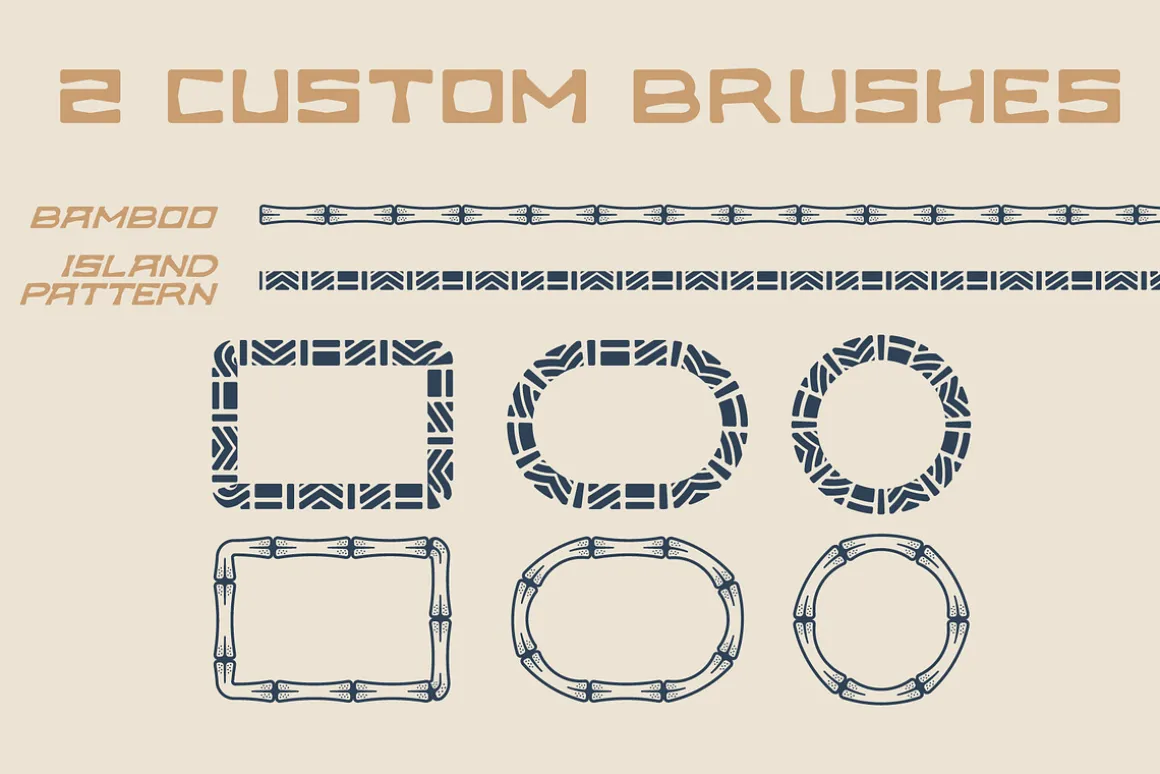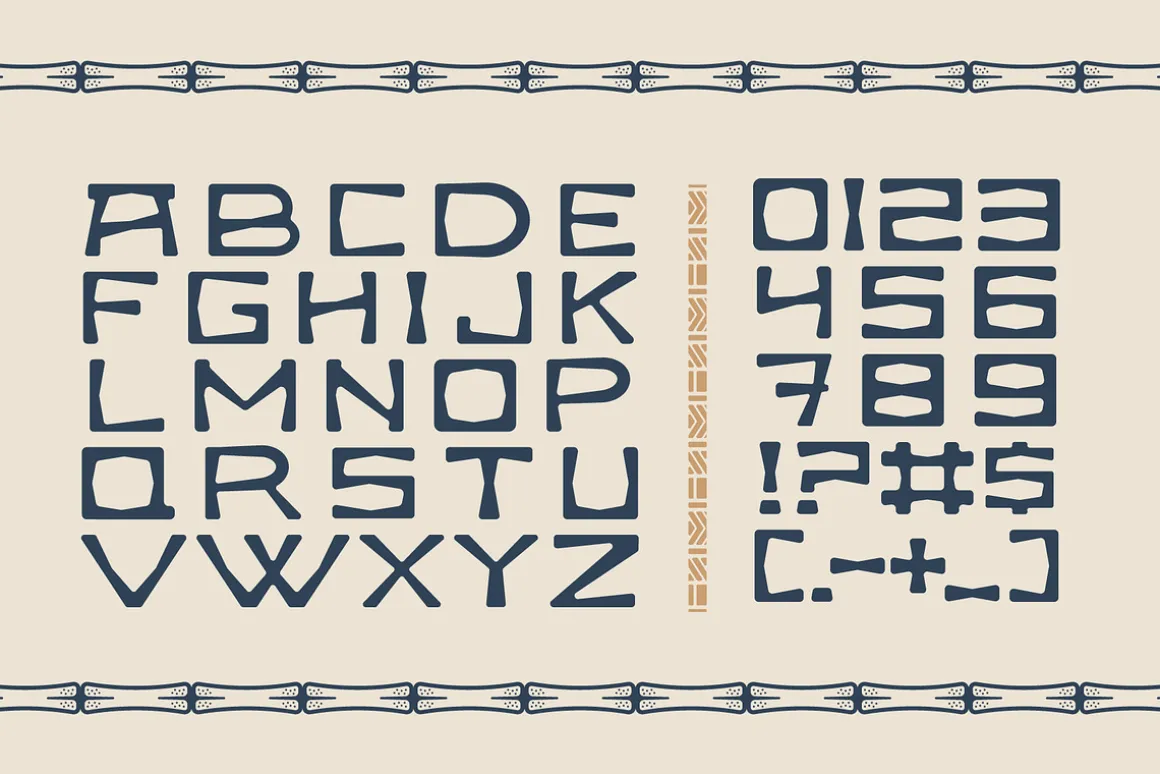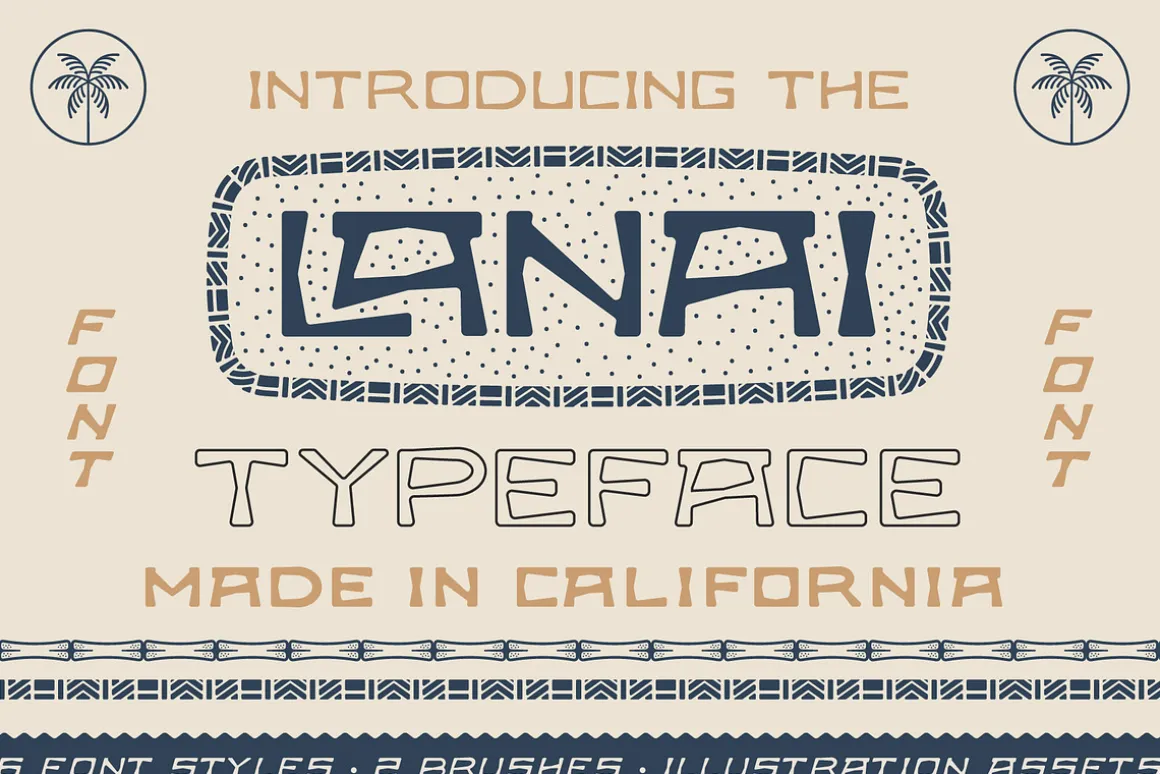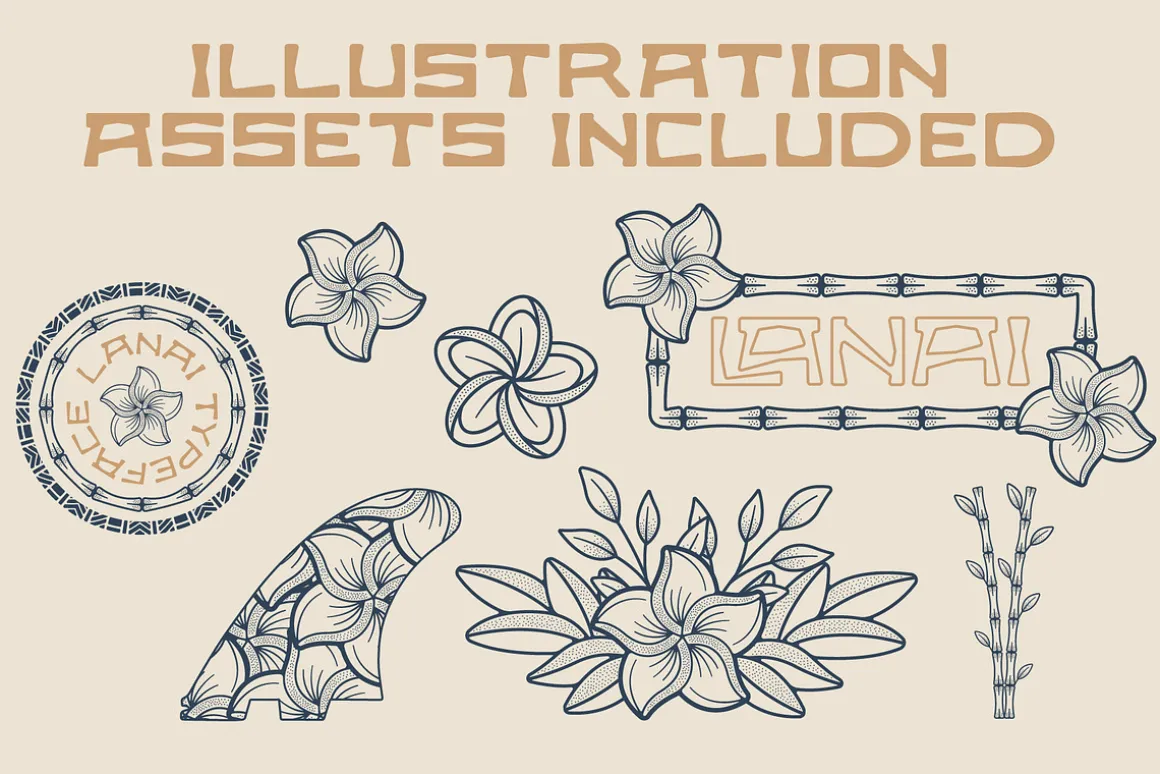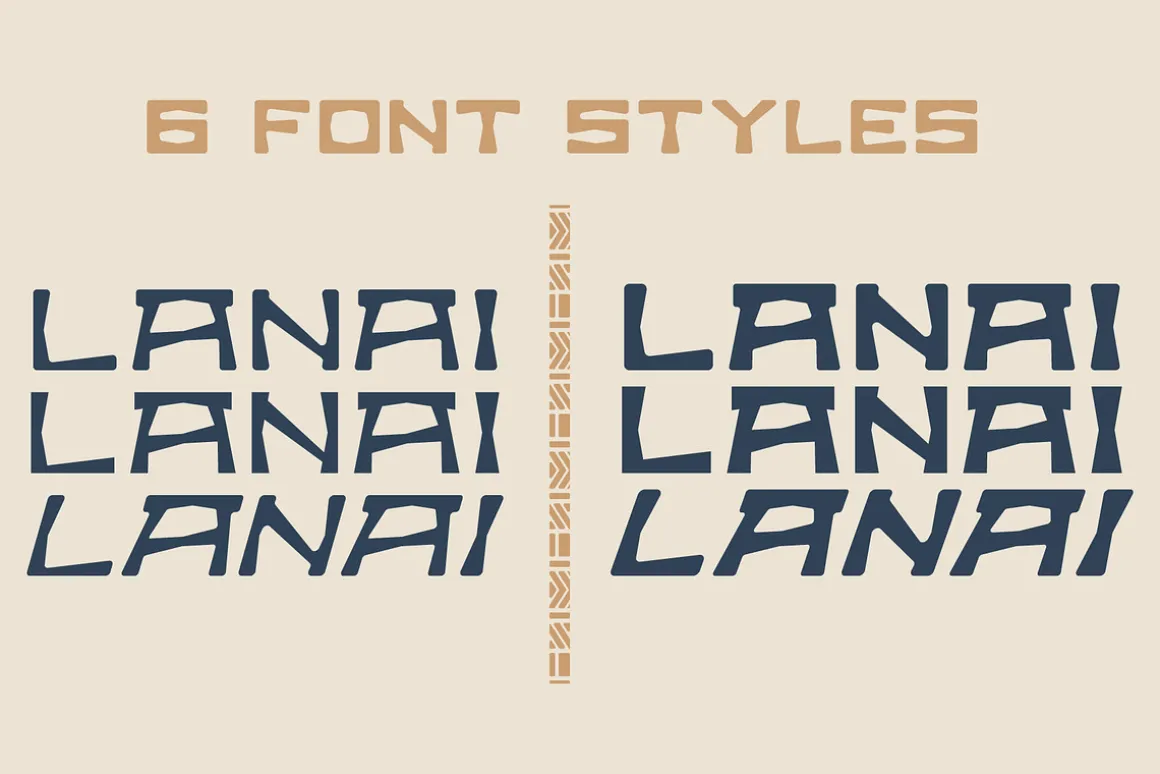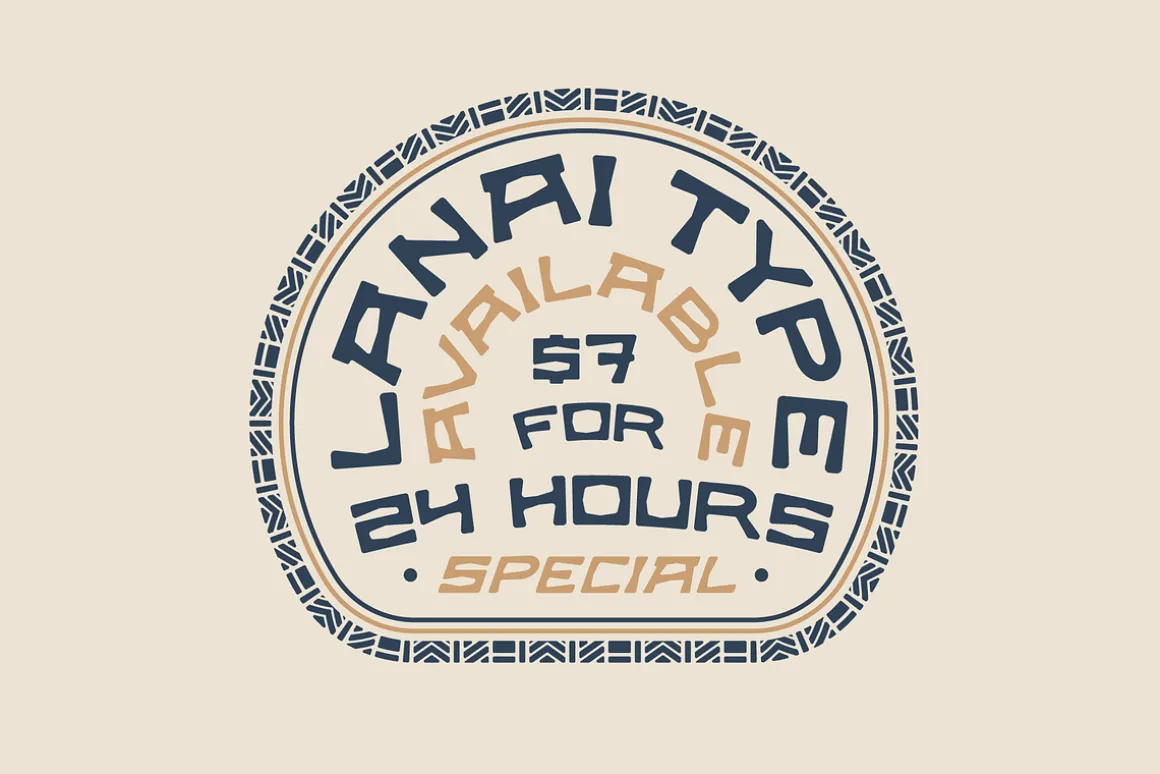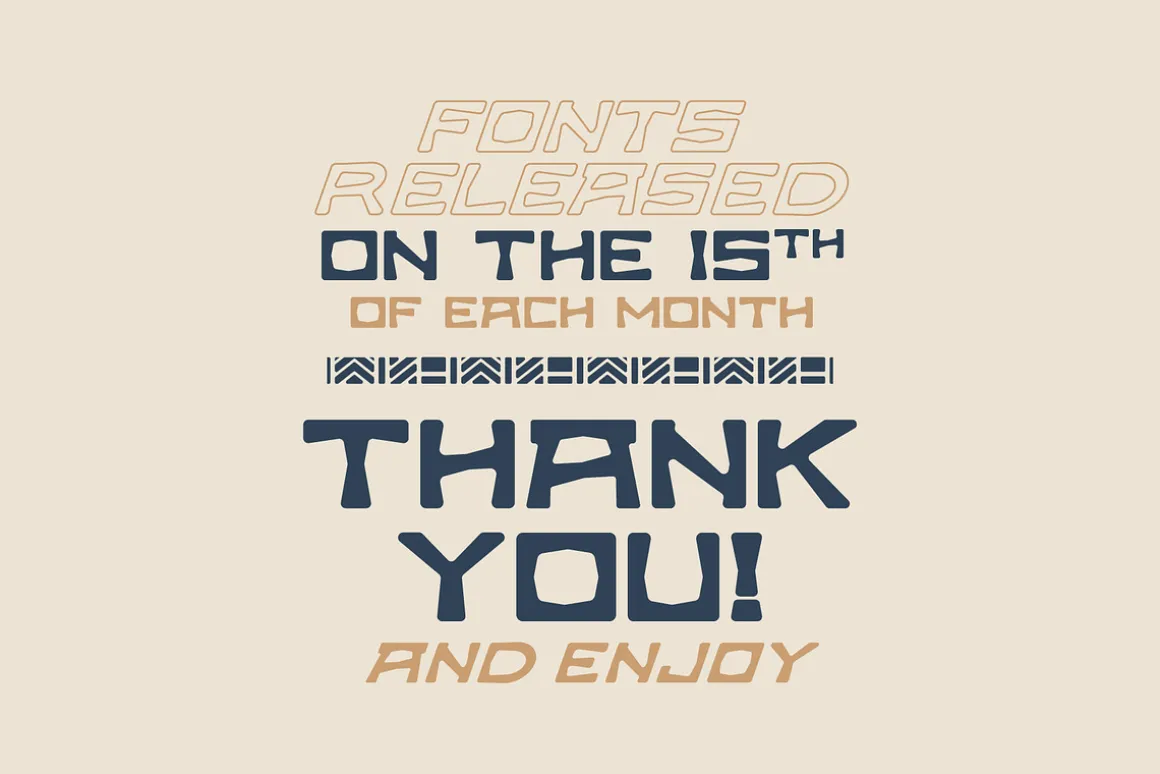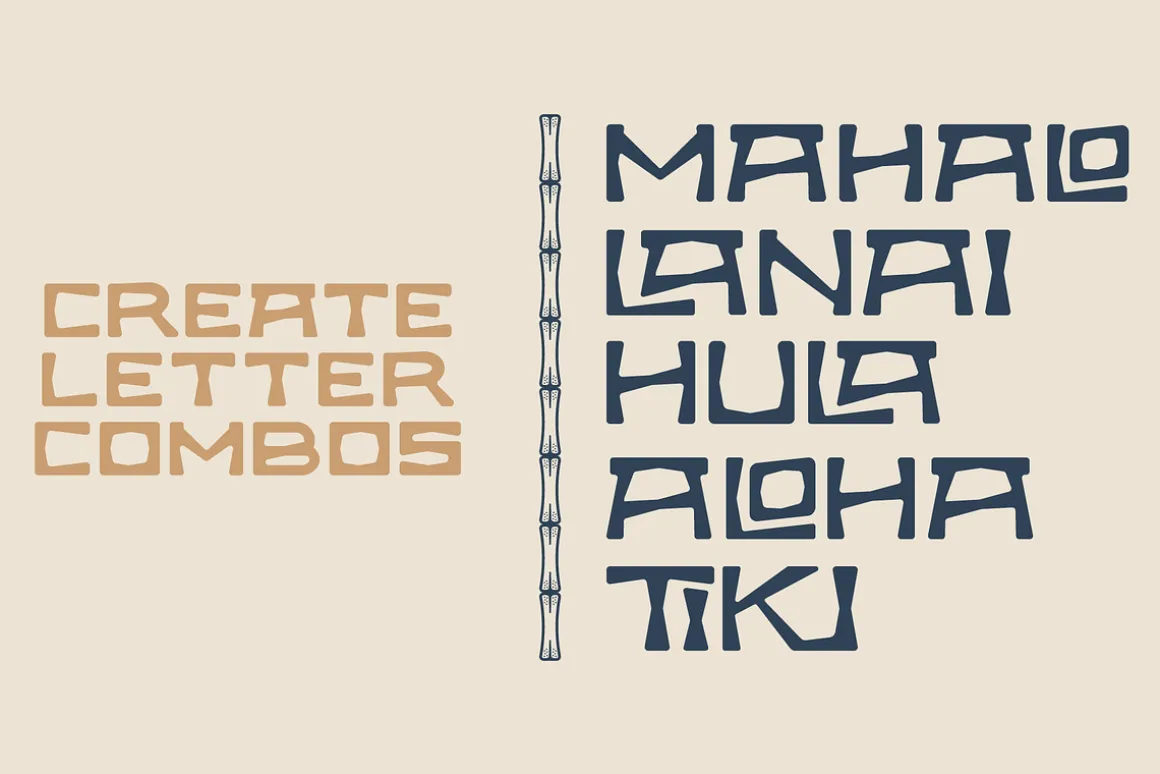
A TIKI/ HAWAIIAN INSPIRED FONTInspired by vintage Island and Hawaiian print design, this font bundle comes stacked with:
- 6 font styles
- TwoHawaiian brush patterns
- A set of vintage illustrations that are fully editable and customizable.